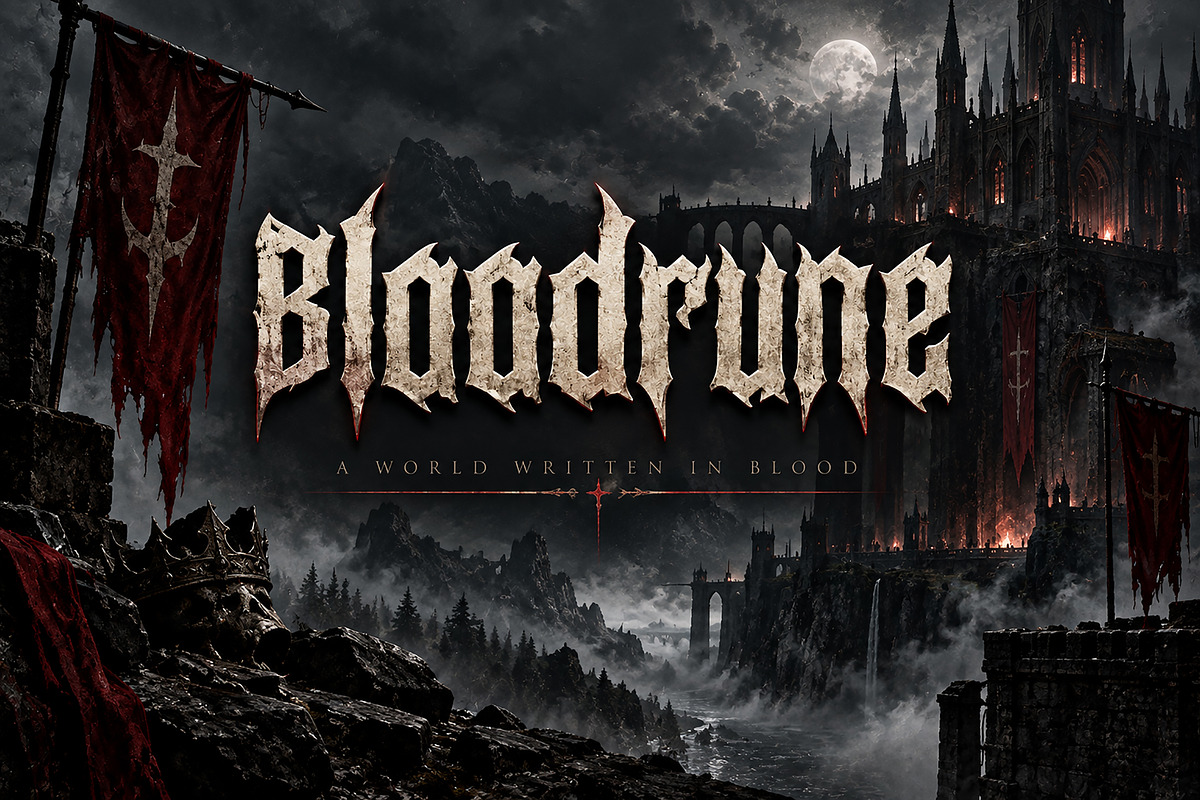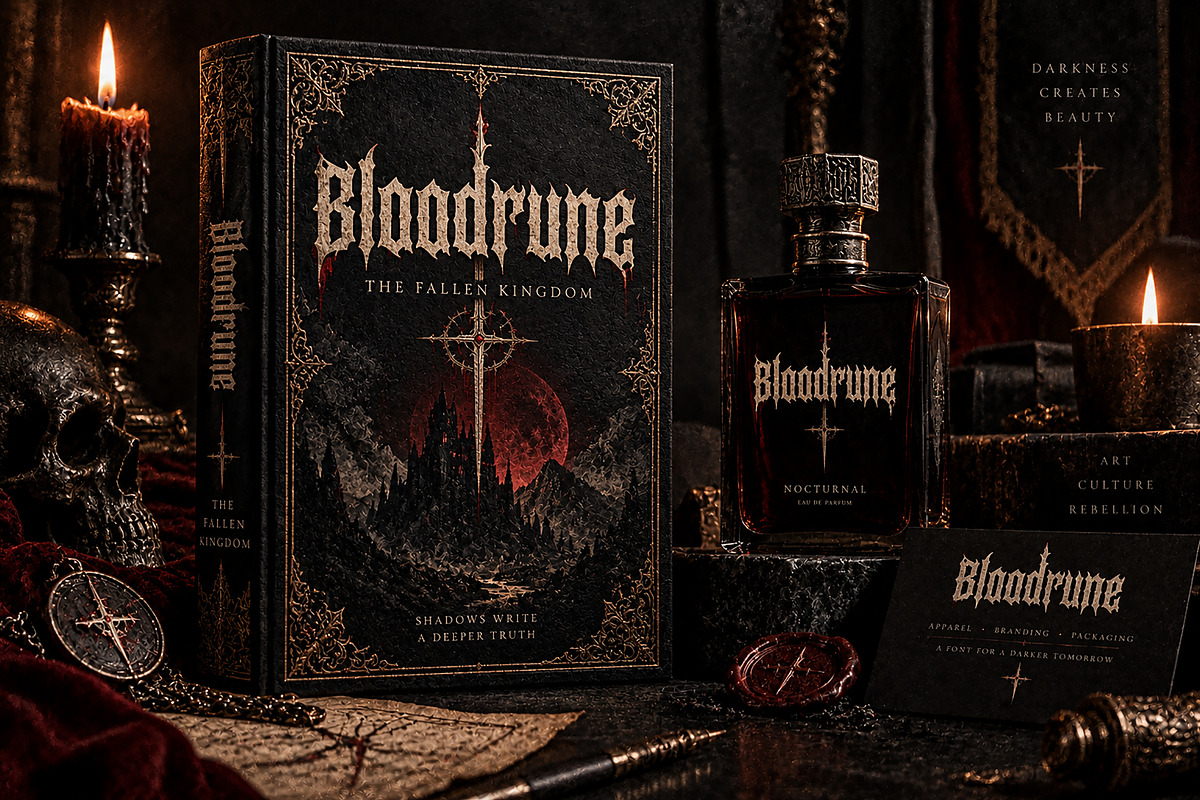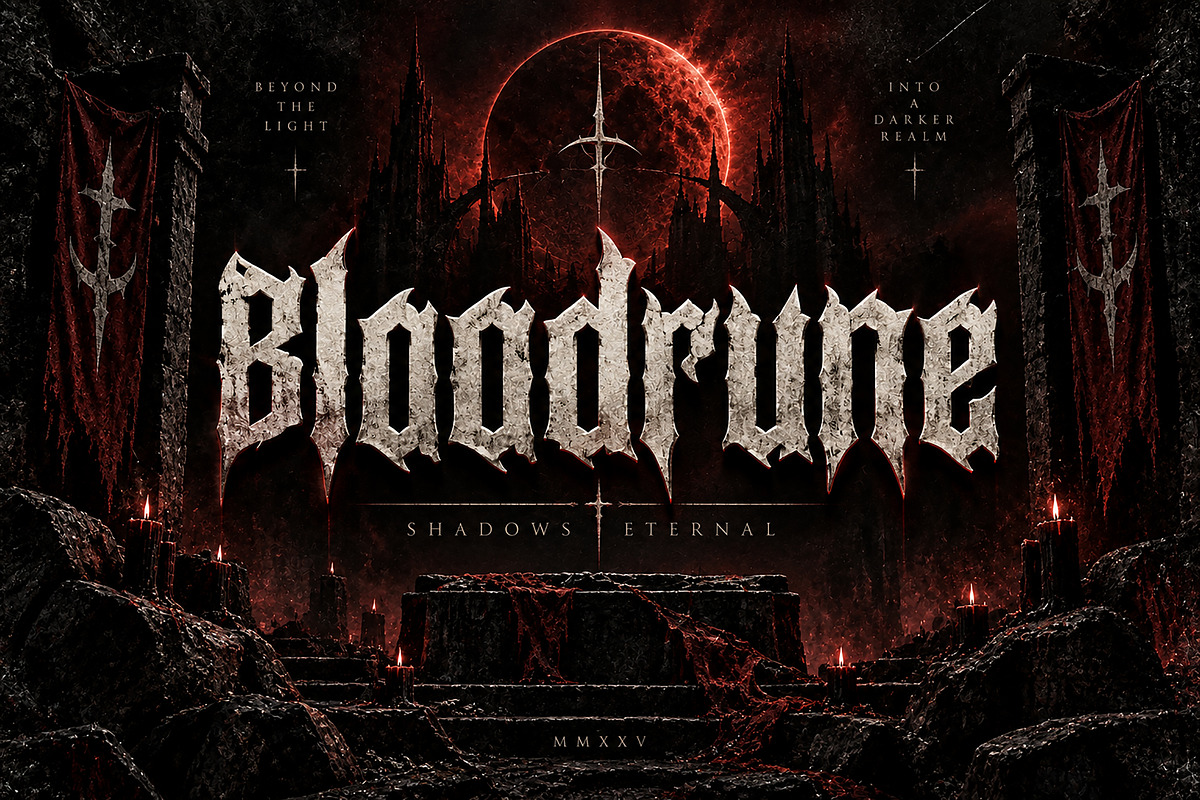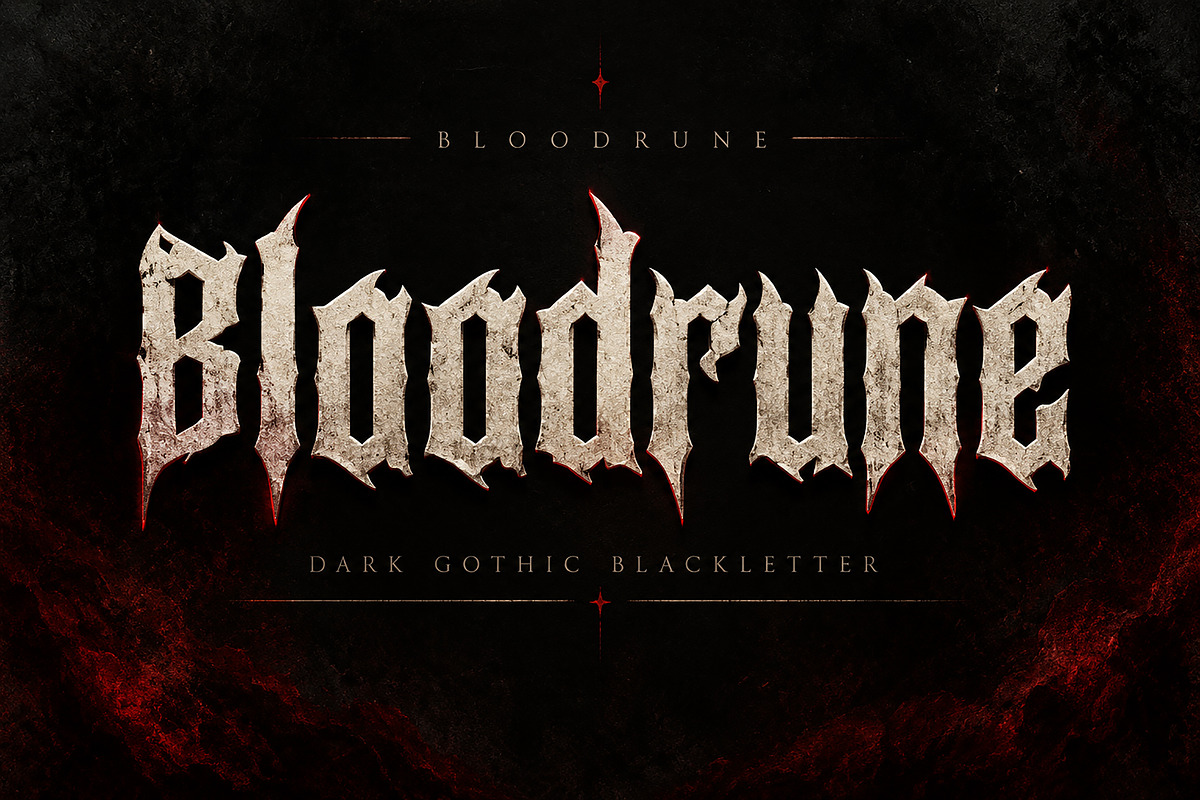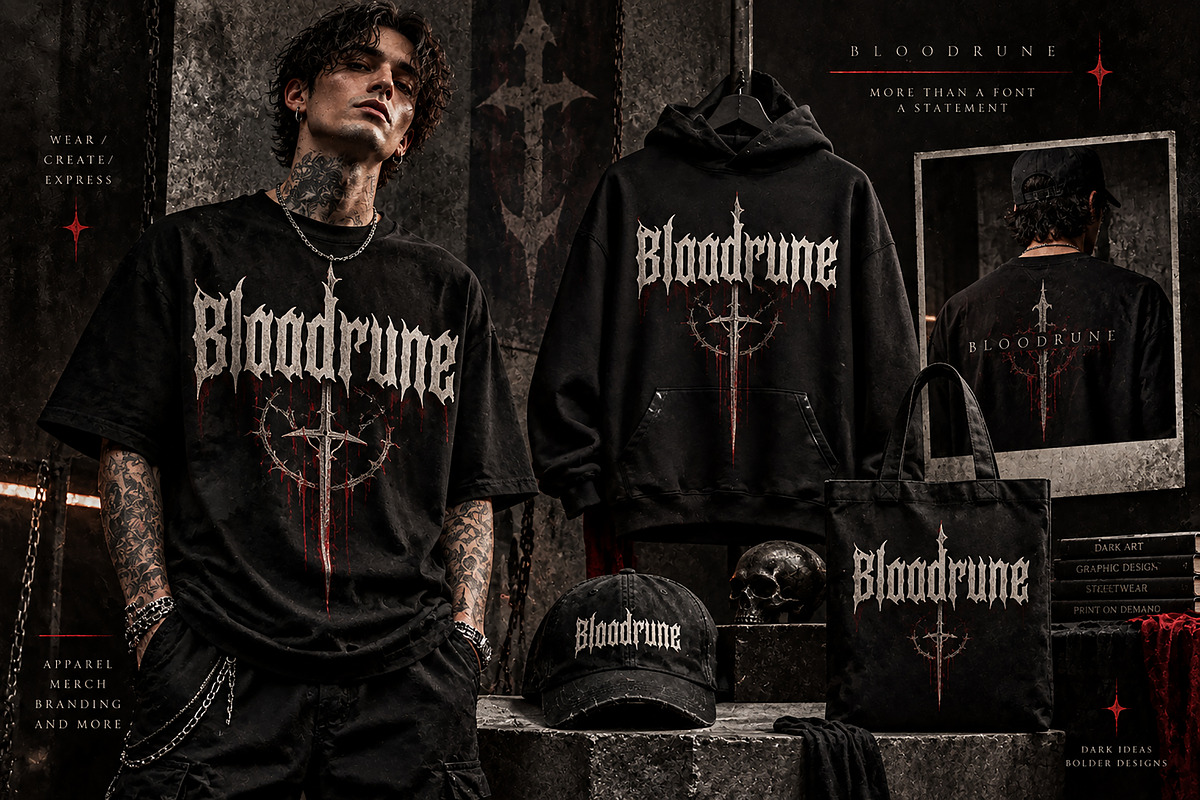
Bloodrune
Bloodrune is a powerful dark gothic blackletter typeface designed to bring an intense medieval, mysterious, and dramatic character to your designs. With its sharp pointed details, tall vertical strokes, and distinctive blackletter structure, Bloodrune creates an instantly recognizable visual impact.
Perfect for designers looking to create bold and atmospheric artwork, this typeface works beautifully across dark fantasy projects, horror artwork, metal and rock album covers, gothic branding, book covers, posters, apparel, merchandise, labels, packaging, logos, and more.
Bloodrune is especially suited for projects that need an ancient, dark, aggressive, and powerful aesthetic while maintaining a premium display presence.
Gothic & Dark Fantasy Designs
Horror Posters & Artwork
Metal & Rock Album Covers
Medieval & Fantasy Titles
Gothic Logos & Branding
T-Shirt & Hoodie Designs
Streetwear & Merchandise
Posters & Print Design
Packaging & Labels
Dark Luxury Branding
Game Titles & Promotional Graphics
Bring a dark, ancient, and commanding atmosphere to your next creative project with Bloodrune.